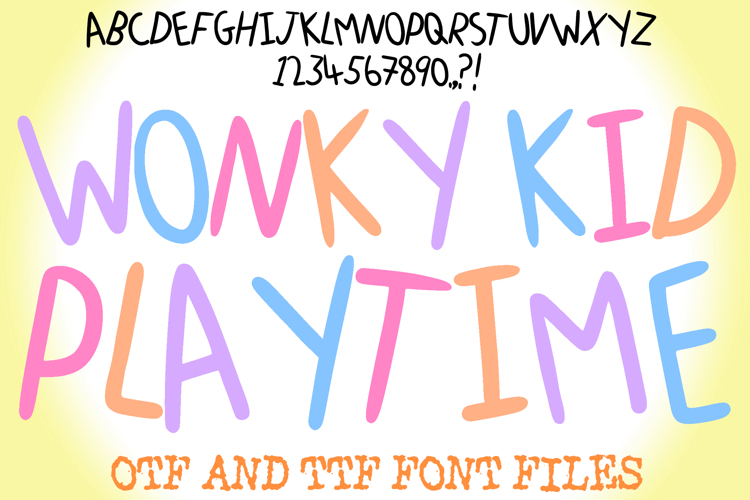
Wonky Kid Playtime Letters Alphabet ABC Text Font Hand Drawn
Introduce a touch of authentic handwriting to your projects with the Wonky Kid Playtime Font! This charming typeface features a clean, simple, and casual hand-drawn style, perfect for creating content with a friendly feel. It captures the neat, yet slightly "wonky," nature of a child's best writing.
It's an ideal choice for children's activity books, kindergarten worksheets, school banners, quick signage, digital planners, scrapbooking, and cutting machine crafts. Available in both OTF and TTF formats for easy installation and broad compatibility. Download the Wonky Kid Playtime Font today and add a clear, playful, and handmade look to any design!